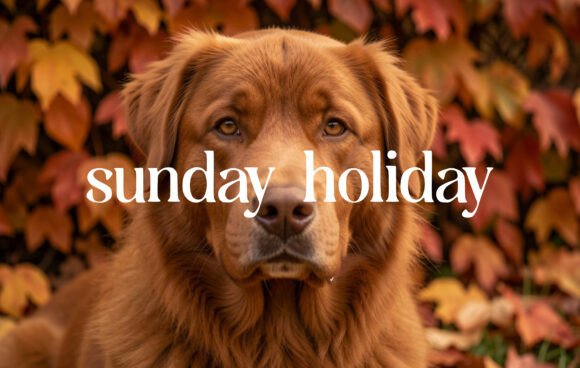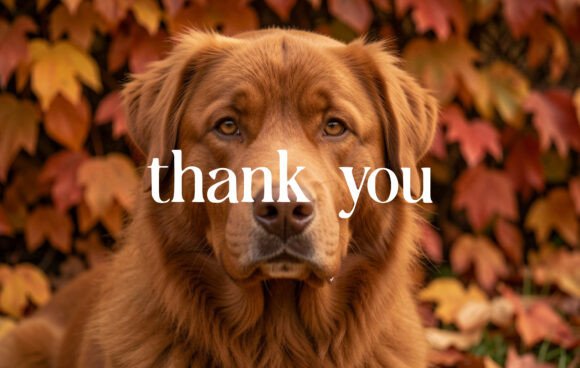
Introducing Dog Love Font: Elevate Your Design with Sophistication
Are you looking for a font that exudes elegance and professionalism? Look no further than Dog Love Font, a sophisticated serif font designed to elevate your design to new heights. With its refined features and classic aesthetic, Dog Love Font is the perfect choice for designers and crafters seeking to add a touch of luxury to their projects.
The Characteristics of Dog Love Font
Dog Love Font boasts a range of characteristics that make it an exceptional choice for a variety of design applications. Its vertically elongated letterforms, stable vertical axis, and high-contrast character geometry create a sense of refinement and sophistication. The font’s sharp, refined serifs and organized visual rhythm provide a sense of airy, professionally balanced presence, making it perfect for:
- Cinematic editorial headers
- Lifestyle brand identities
- Boutique photography watermarks
- Sophisticated digital interface titles
Design Features and Benefits
Dog Love Font’s design is carefully crafted to provide a sense of elegance and refinement. Its key features include:
- Vertically elongated letterforms: Creating a sense of height and sophistication
- Stable vertical axis: Providing a sense of balance and harmony
- High-contrast character geometry: Adding depth and visual interest
- Sharp, refined serifs: Creating a sense of luxury and refinement
- Organized visual rhythm: Providing a sense of airy, professionally balanced presence
The benefits of using Dog Love Font include:
- Enhanced visual appeal: Elevate your design with a sophisticated and elegant font
- Increased professionalism: Convey a sense of luxury and refinement in your design
- Versatility: Suitable for a range of design applications, from editorial headers to digital interface titles
Why Choose Dog Love Font?
With so many fonts available, why choose Dog Love Font? Here are just a few reasons:
- Unique and distinctive: Stand out from the crowd with a font that exudes elegance and sophistication
- High-quality design: Carefully crafted to provide a sense of refinement and luxury
- Easy to read: Clear and legible, even at small sizes
- Flexible: Suitable for a range of design applications and styles
Tips for Using Dog Love Font
To get the most out of Dog Love Font, here are a few tips:
- Use it as a headline font: Dog Love Font is perfect for grabbing attention and adding a touch of sophistication to your design
- Pair it with a sans-serif font: Create a striking contrast by pairing Dog Love Font with a clean and modern sans-serif font
- Experiment with different sizes and colors: Play around with different sizes and colors to add visual interest and depth to your design
Dog Love Font is a sophisticated serif font that offers a range of benefits and design possibilities. With its elegant aesthetic, refined features, and versatility, it’s the perfect choice for designers and crafters seeking to add a touch of luxury to their projects. Whether you’re working on a cinematic editorial header, lifestyle brand identity, boutique photography watermark, or sophisticated digital interface title, Dog Love Font is sure to impress.